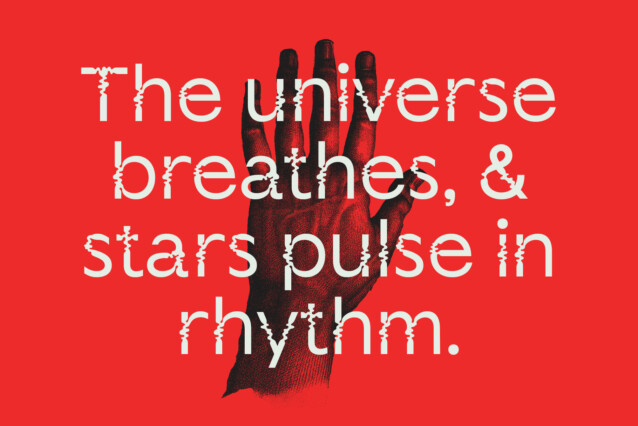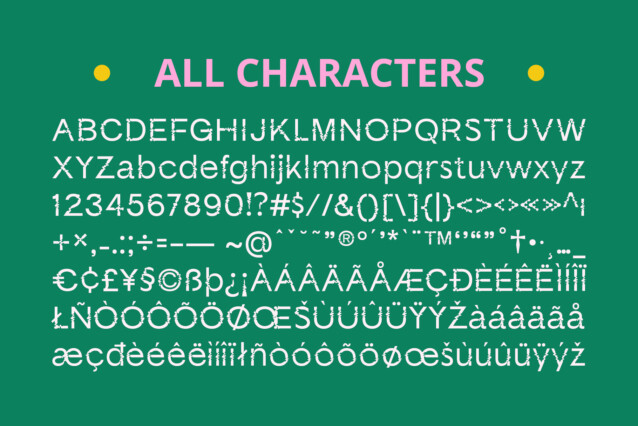
CS Pacify Font
CS Pacify Font is a captivating sans serif display font that brings the psychedelic era into the modern age with playful, irregular, and fluid letterforms. Its unique, curving shapes exude a cheerful and funky vibe, perfect for projects that aim to stand out and radiate creative energy. This font is ideal for music event posters, branding with an artistic twist, and any design that seeks to showcase bold originality.